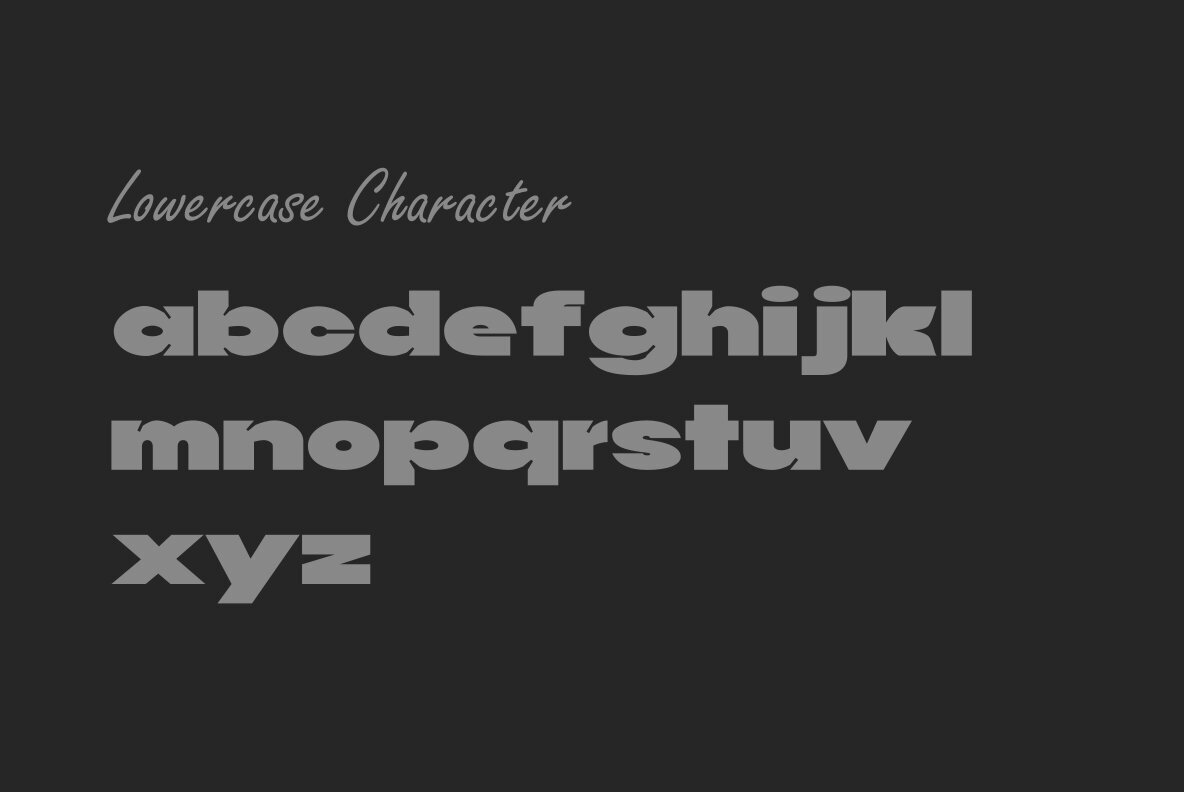
Blantica Font
Blantica
Blantica font is inspired by something harmonious and is made with variations in inktrap with bold font sizes making this font look unique and harmonious. suitable in the use of display fonts and graphic designs such as logos, covers, and others.